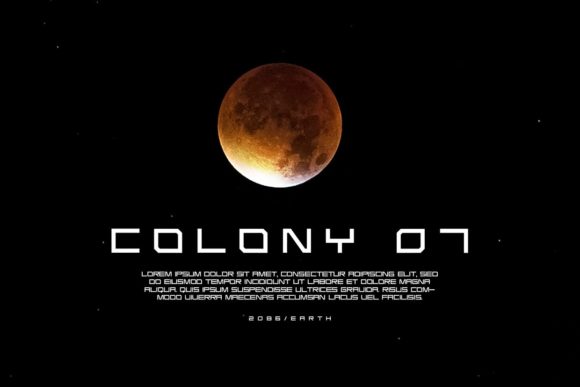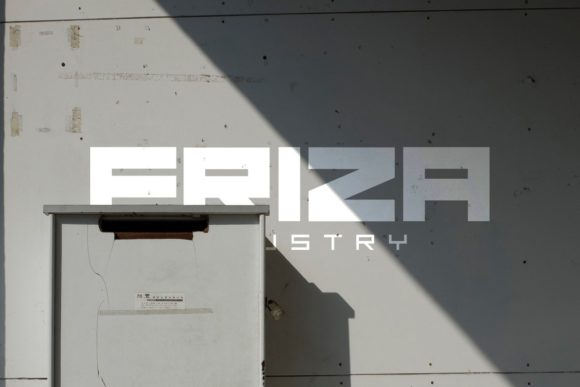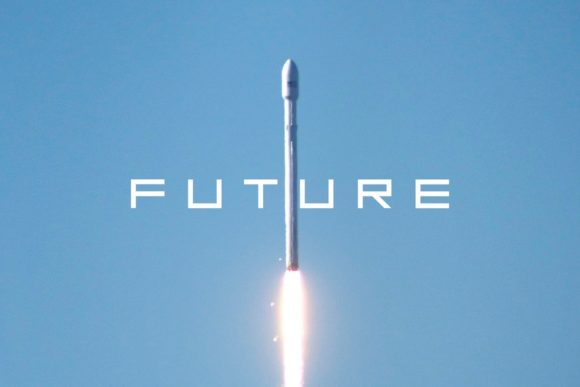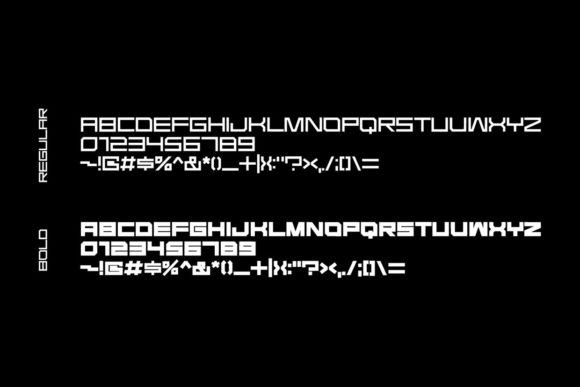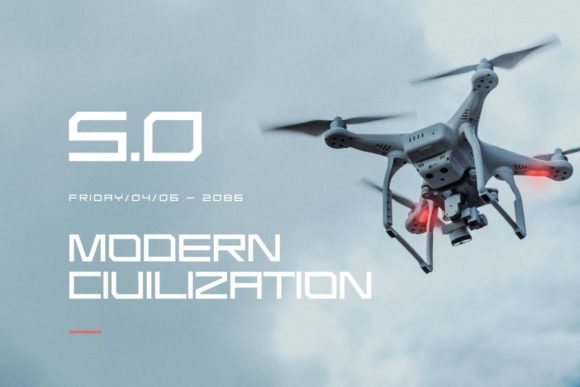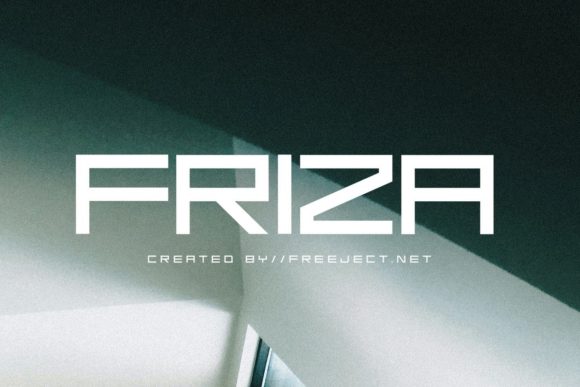
Introducing Friza Font: The Ultimate Geometric Sans Serif for Creative Projects
In the world of typography, fonts play a crucial role in shaping the visual identity of a creative project. A well-chosen font can elevate the overall aesthetic, convey the right message, and leave a lasting impression on the audience. If you’re a designer, craft, or simply a creative enthusiast, you’re likely on the lookout for a font that exudes modernity, sophistication, and a touch of futurism. Look no further than Friza Font, a rigid and futuristic sans serif font that’s sure to take your projects to the next level.
What is Friza Font?
Friza Font is a sans serif font characterized by its square corners and geometric design. This font boasts strong, sturdy characters that convey a sense of firmness and power. The overall aesthetic is sleek, modern, and perfect for projects that require a futuristic or technological feel. Whether you’re working on a branding campaign, a website, or a print project, Friza Font is an excellent choice.
Key Features of Friza Font
- Geometric Design: Friza Font’s geometric shape gives it a futuristic and modern look that’s perfect for projects that require a cutting-edge feel.
- Square Corners: The square corners of Friza Font add to its rigidity and strength, making it ideal for projects that require a bold and assertive look.
- Strong Characters: Each character in Friza Font is carefully crafted to convey a sense of power and confidence, making it perfect for headlines, titles, and other display text.
- Versatility: Friza Font is highly versatile and can be used in a wide range of creative projects, from branding and advertising to web design and print materials.
Who Can Benefit from Using Friza Font?
Friza Font is an excellent choice for a variety of creatives, including:
- Graphic Designers: Friza Font is perfect for graphic designers who need a modern and bold font for their branding, advertising, and print projects.
- Web Designers: The font’s geometric design and strong characters make it an excellent choice for web designers who want to create a futuristic and user-friendly interface.
- Crafters and Makers: Friza Font is also suitable for crafters and makers who want to add a touch of modernity and sophistication to their handmade projects, such as crafts, DIY tutorials, and product labels.
How to Use Friza Font in Your Projects
Using Friza Font in your projects is easy. Here are a few tips to get you started:
- Headlines and Titles: Use Friza Font for headlines and titles to add a bold and attention-grabbing element to your project.
- Branding and Logo Design: Friza Font is perfect for branding and logo design, especially for companies that want to convey a sense of modernity and innovation.
- Web Design: Use Friza Font for web design to create a consistent and modern look across your website.
In conclusion, Friza Font is an excellent choice for creatives who want to add a touch of modernity and futurism to their projects. Its geometric design, strong characters, and versatility make it perfect for a wide range of applications, from graphic design and web design to crafting and making. Whether you’re a seasoned designer or a DIY enthusiast, Friza Font is sure to elevate the appearance of your creative projects and leave a lasting impression on your audience.